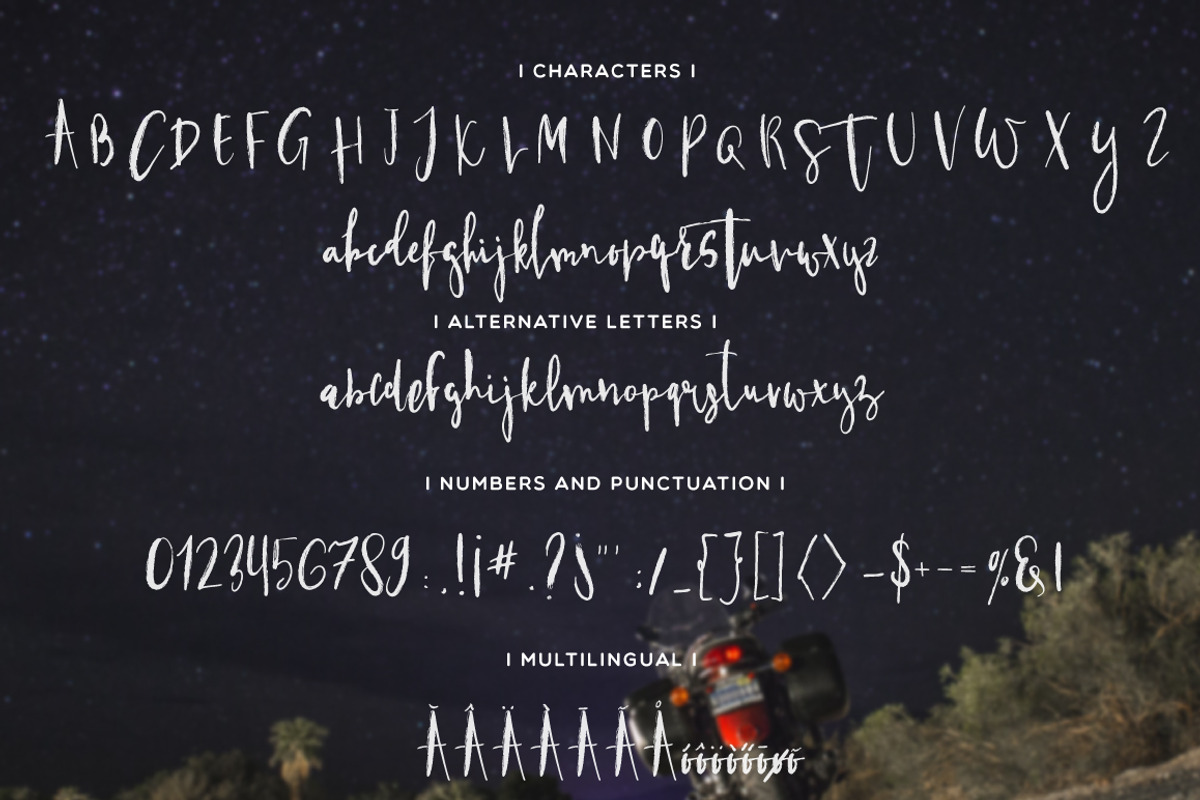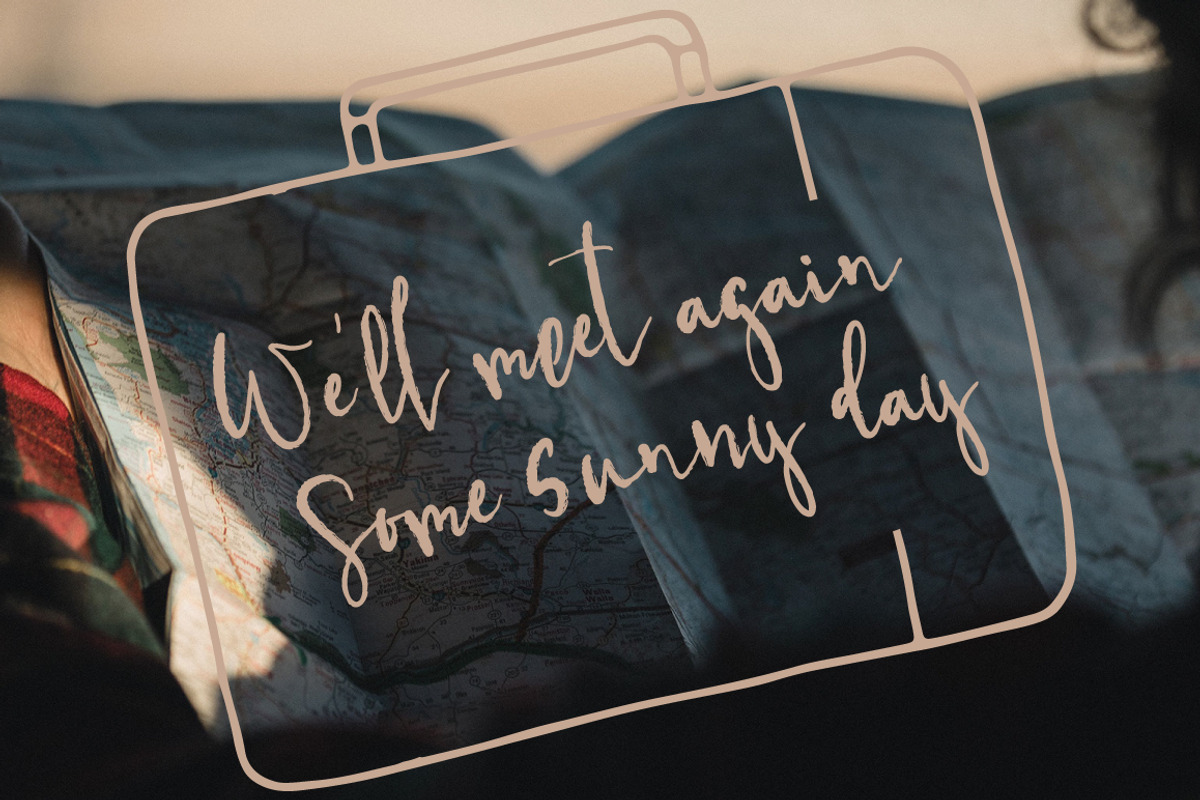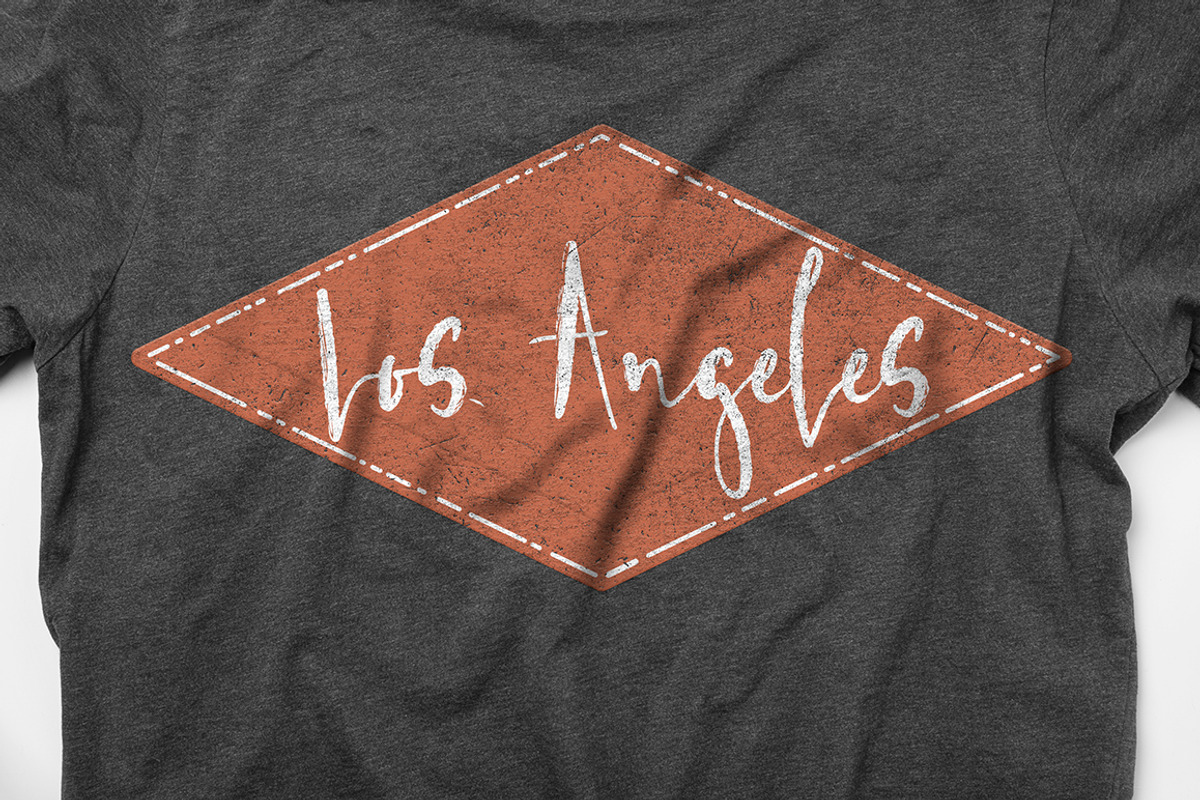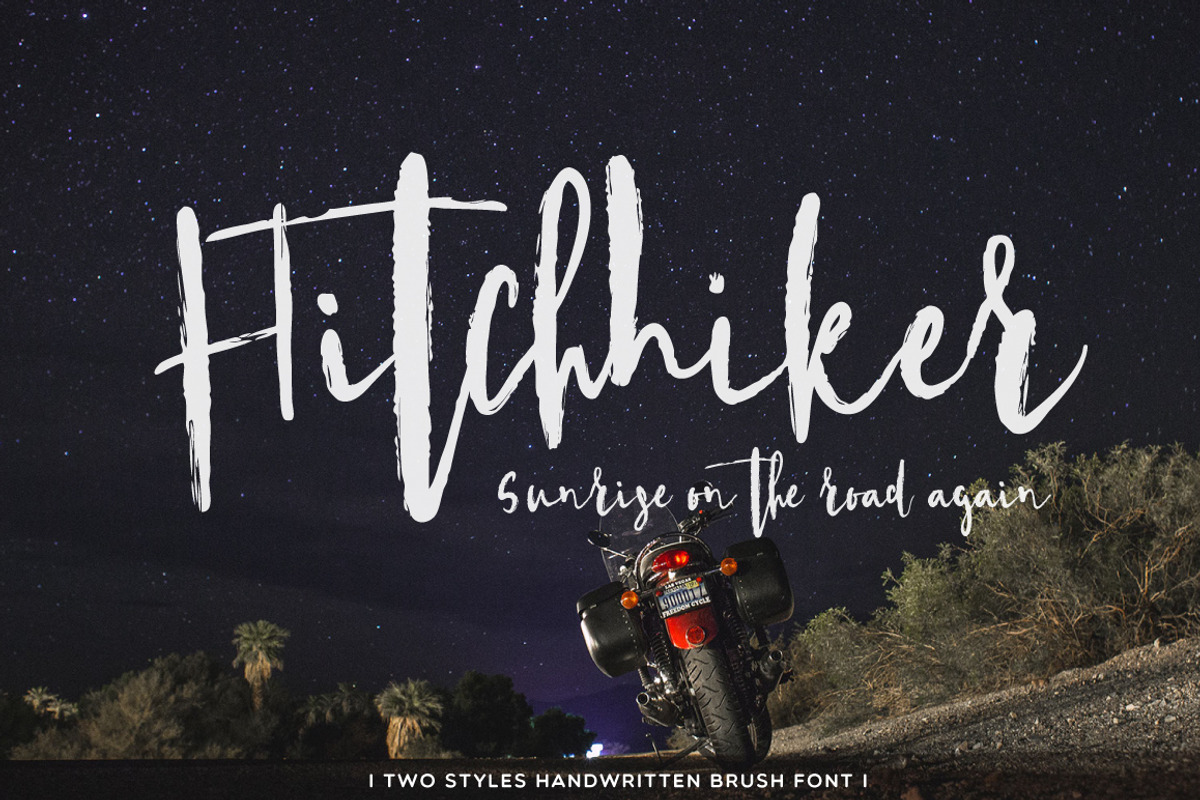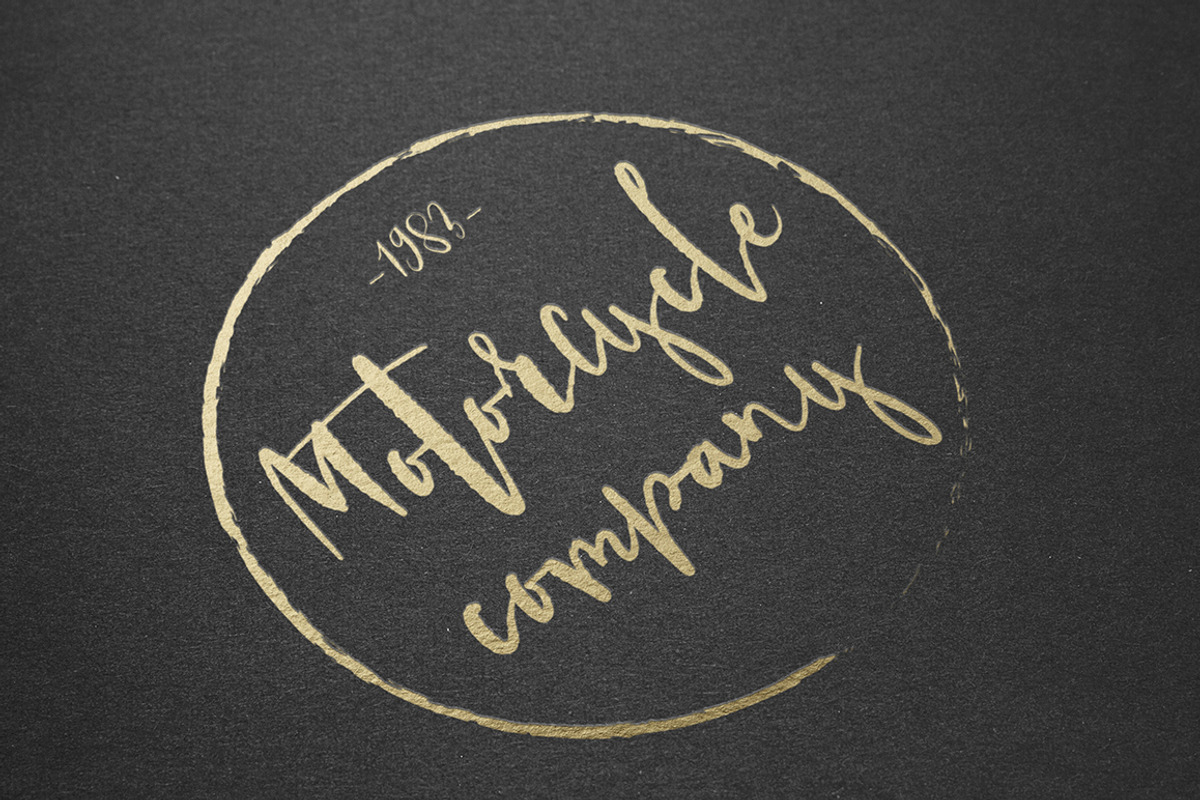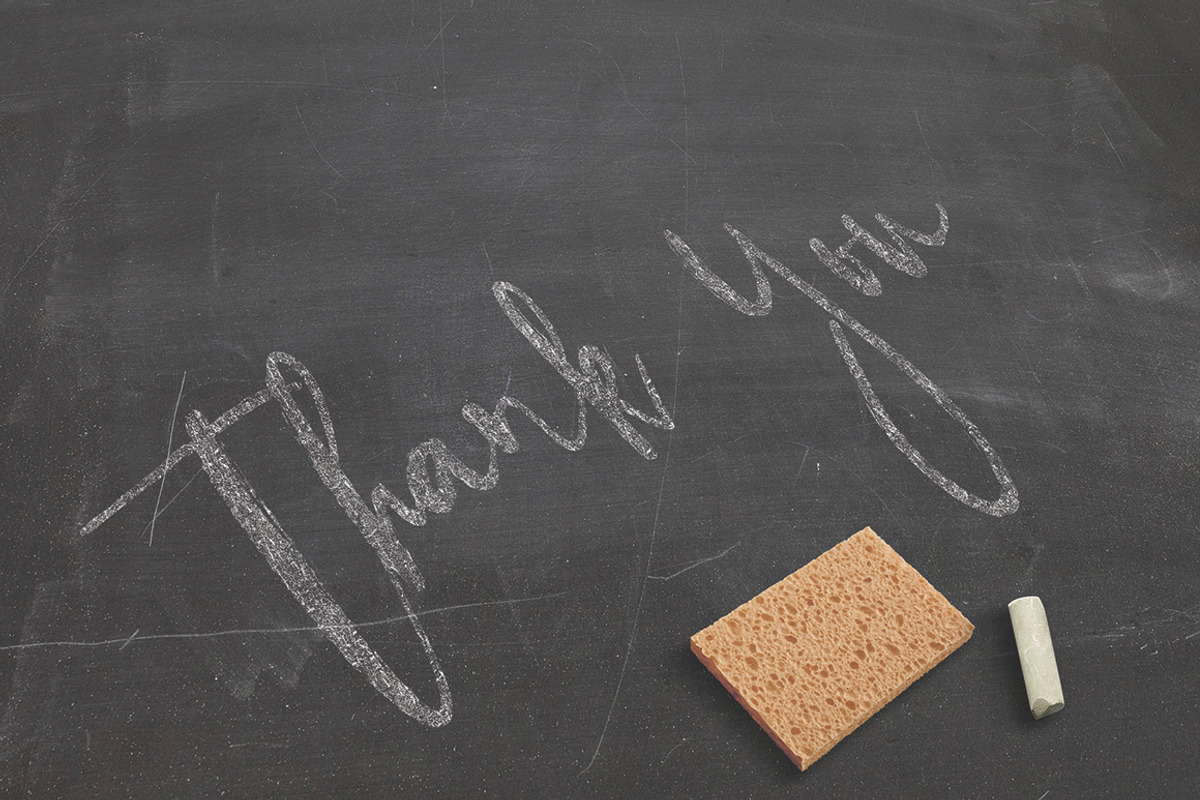
Hitchhiker Font
Hitchhiker Font by Creamy Script is a font selected for branding, posters, packaging, typography.
- A handwritten multilingual brush font with two styles.
Why Hitchhiker Font is worth a look
Hitchhiker Font by Creamy Script fits naturally into Branding, posters, packaging, typography.